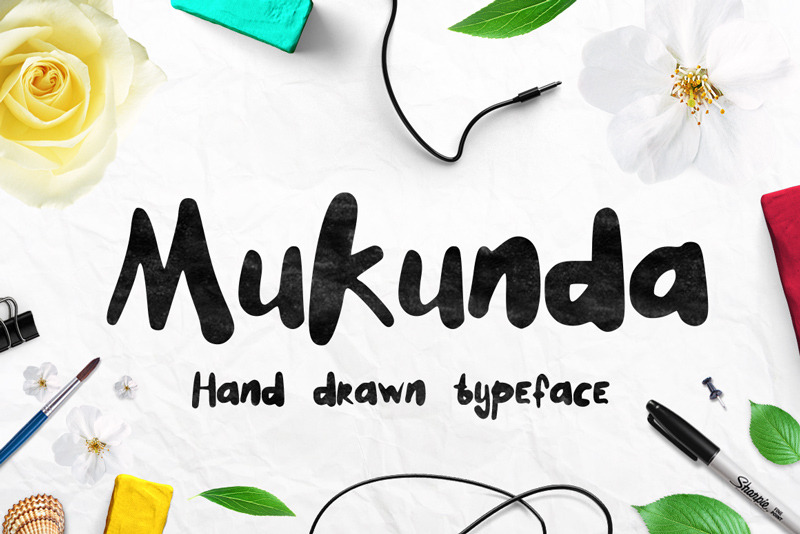
Mukunda font
Mukunda is a hand drawn brush font and guaranteed to give your text a personal, custom-made feel. Useable for your design projects - greeting cards, magazine covers, typograpy posters, branding or logo.